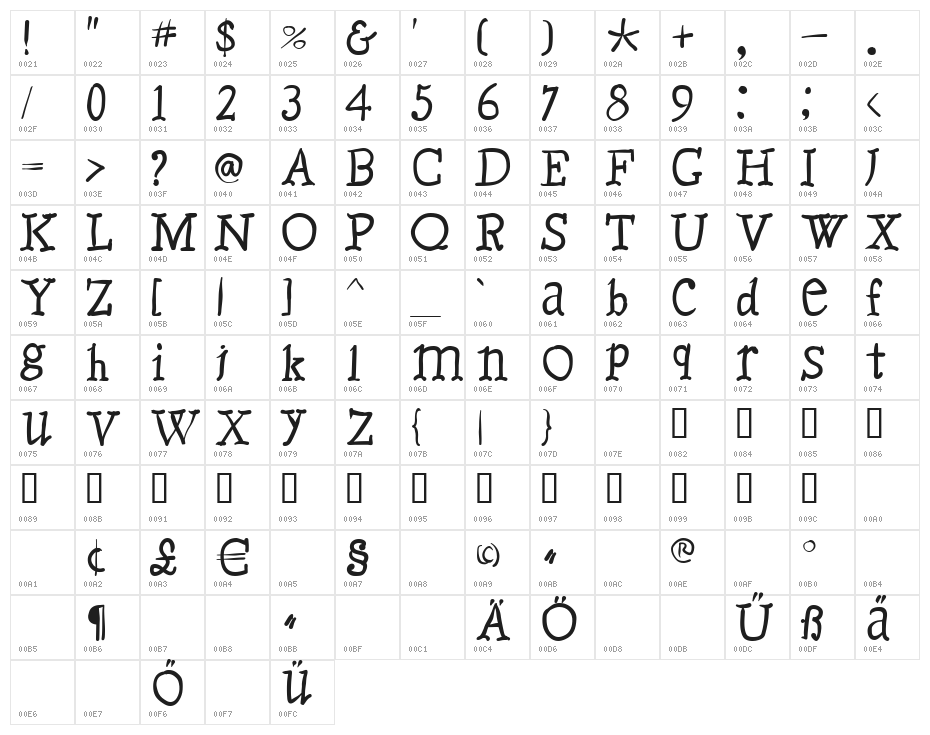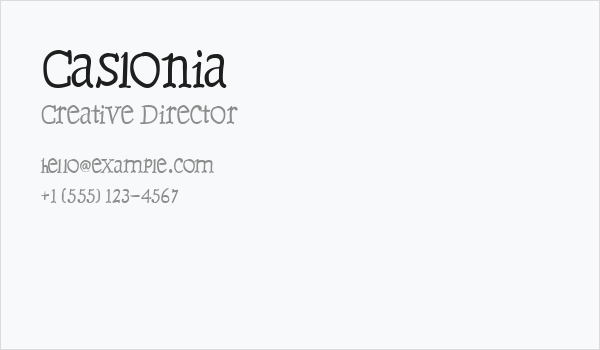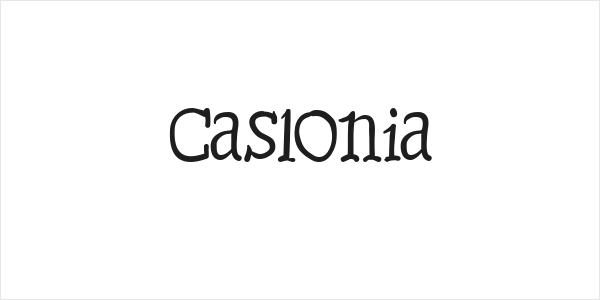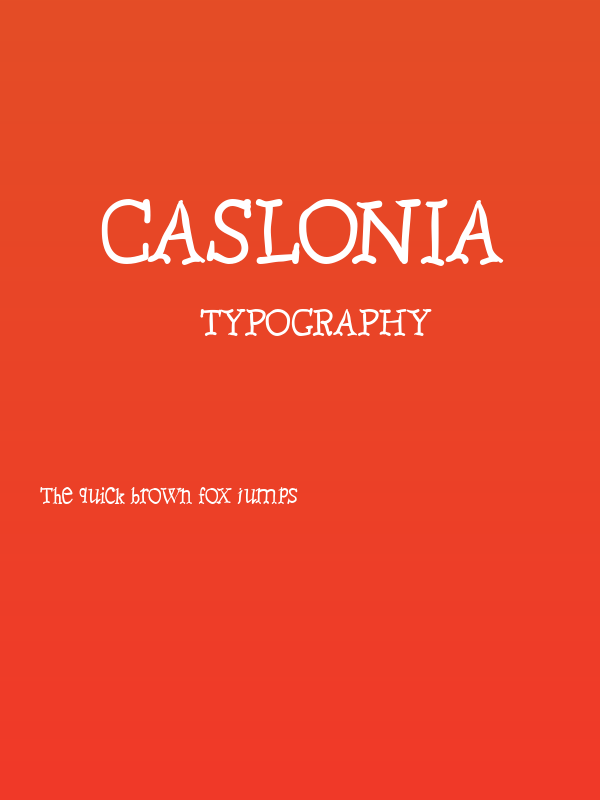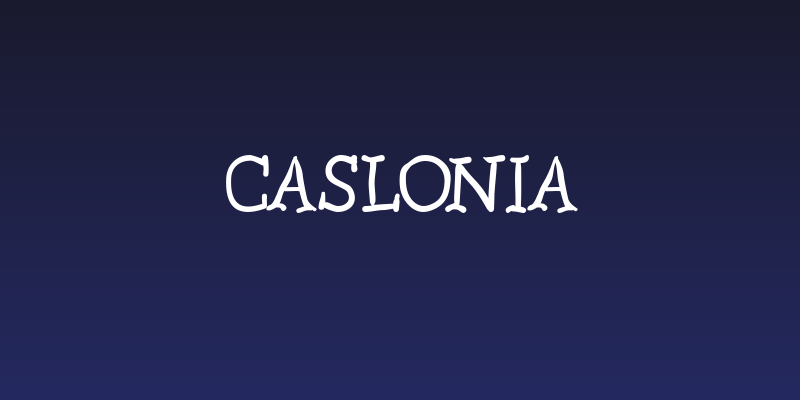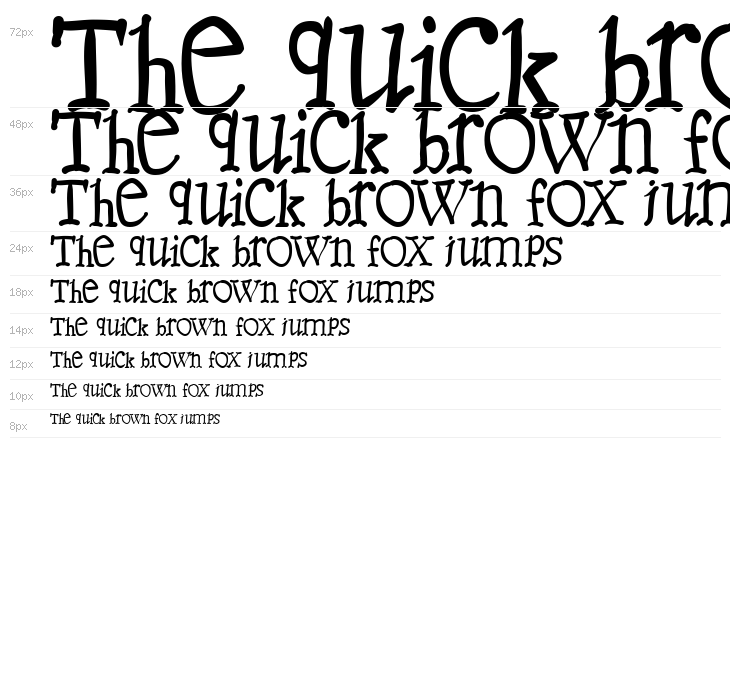
Caslonia Font
Caslonia Description
This font features a whimsical and playful design with a handwritten style. The characters have a unique, slightly irregular shape that adds a touch of personality and charm. The uppercase letters are bold and prominent, while the lowercase letters maintain a consistent flow with rounded edges. The numerals are distinct and easy to read, complementing the overall style. Special characters are creatively designed, enhancing the font's decorative appeal. This font is perfect for projects that require a fun and informal touch, such as children's books, greeting cards, and playful branding.